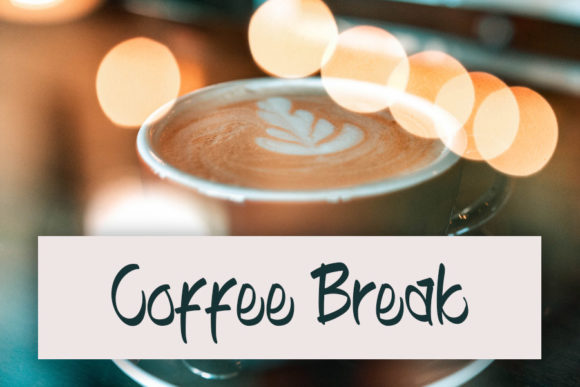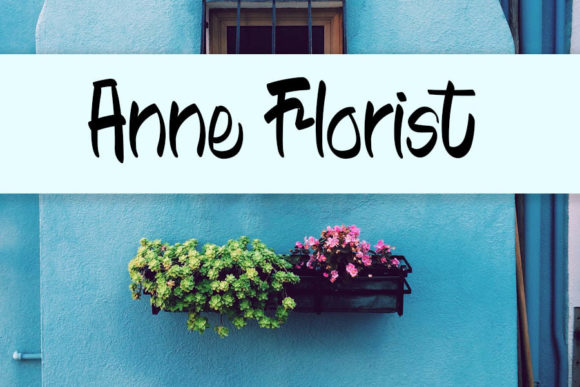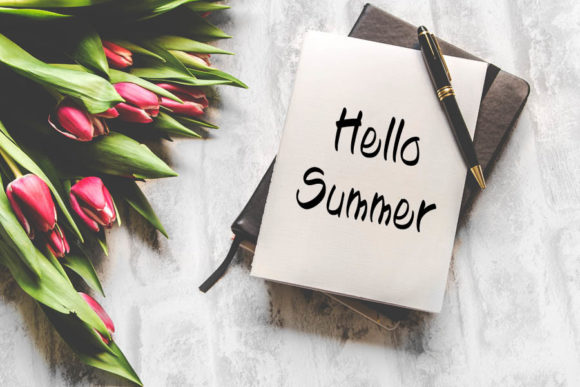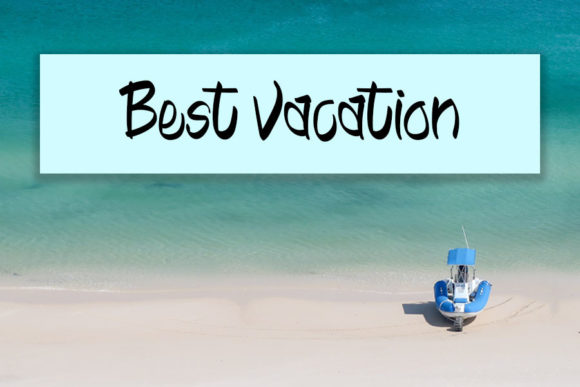
Queen Rose Font
About Queen Rose Font
Introducing Queen Rose, a charming, vibrant, and chic script font that exudes cuteness and brightness. Designed with careful attention to detail, Queen Rose strikes the perfect balance between thin and thick strokes, resulting in a harmonious and varied letterform. This font is specifically crafted to enhance the beauty of your projects and bring a touch of elegance to your designs.
With its playful yet sophisticated appearance, Queen Rose adds a delightful charm to any creative endeavor. The graceful curves and stylish flourishes of each letter evoke a sense of whimsy and joy. Whether you’re working on invitations, greeting cards, branding materials, or any other project that requires a touch of sweetness, Queen Rose is the perfect choice to infuse your designs with a captivating and endearing quality.
The versatility of Queen Rose further enhances its appeal. It can be seamlessly used in a variety of contexts, adapting to different design needs. The font shines in both headline and body text, making it suitable for a wide range of applications. Whether you’re creating eye-catching titles or crafting readable paragraphs, Queen Rose ensures that your message is beautifully presented and easily absorbed.
Furthermore, Queen Rose has been meticulously designed to be both visually appealing and highly legible. Its well-balanced letterforms guarantee readability even at smaller sizes, allowing your audience to engage with your content effortlessly. This versatility in legibility makes Queen Rose an excellent choice for projects that require both style and clarity.
As a script font, Queen Rose invites you to explore its chic and elegant nature. Its flowing and organic strokes effortlessly reflect the beauty of handwritten calligraphy, while maintaining a sense of refinement and sophistication. This combination of casual charm and polished aesthetics makes Queen Rose a truly versatile and captivating font that brings a touch of magic to your designs.
Embrace the allure of Queen Rose and witness how it enhances the beauty and elegance of your projects. Whether you’re designing for a wedding, creating branding materials, or simply adding a touch of whimsy to your creative endeavors, Queen Rose is the perfect companion to bring your vision to life.